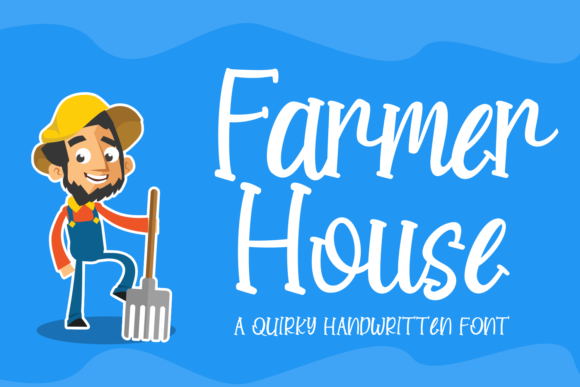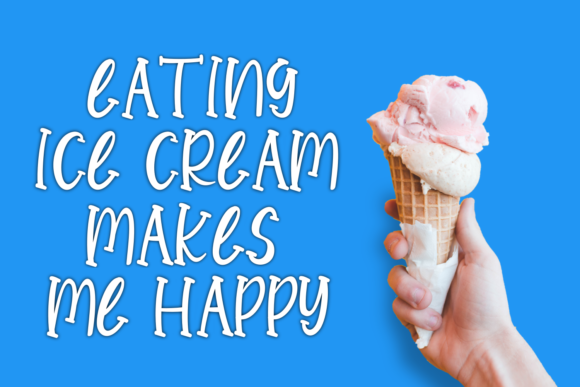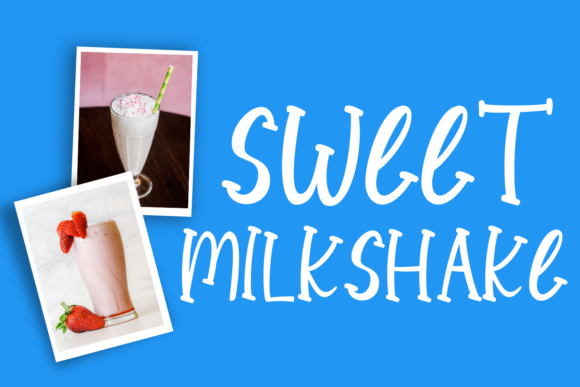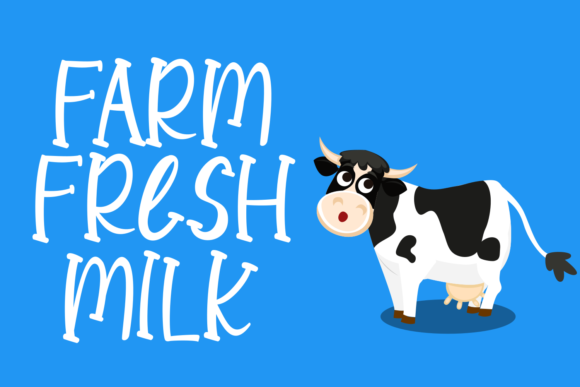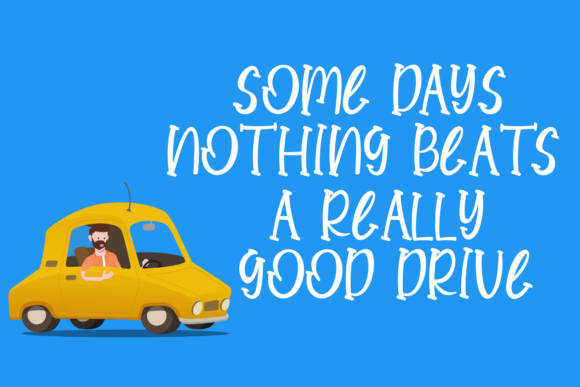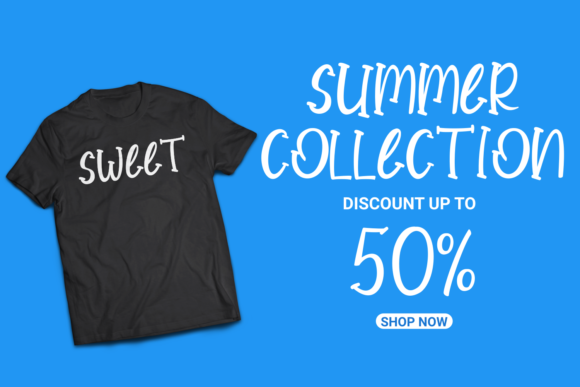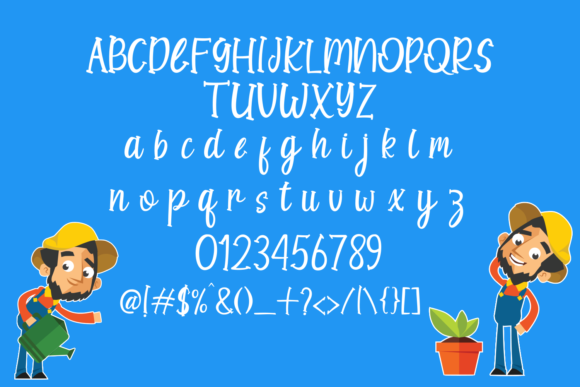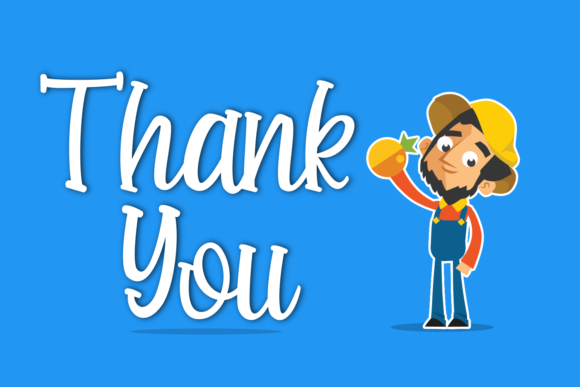
Farmer House Font
About Farmer House Font
Farmer House embodies fun, quirkiness and authenticity. This enchanting handwritten font will turn any creative idea into a true standout.